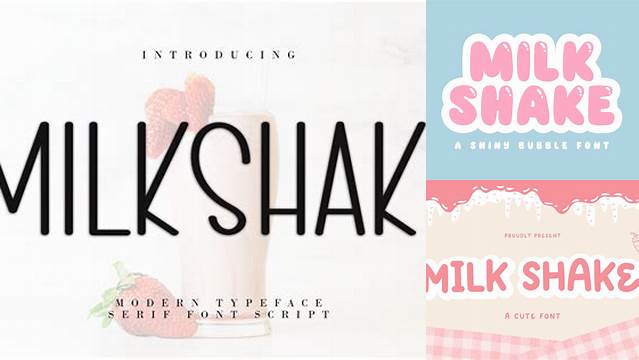
Milkshake Fonts: Your Ultimate Guide To Sweet & Playful Typography
Hey guys, ever stopped to think about the fonts you see every day? They're everywhere, from the websites you browse to the apps on your phone. But have you ever considered how a specific font can make you crave a delicious milkshake? That's the magic of milkshake fonts! These fonts are designed to evoke the feeling of creamy, sweet indulgence, perfect for anything related to food, fun, and a touch of nostalgia. Let's dive deep into the world of milkshake fonts, explore their characteristics, and see how you can use them to add a sprinkle of sweetness to your projects. This comprehensive guide is designed to help you understand and leverage the unique charm of these delightful typefaces.
What Exactly Are Milkshake Fonts?
So, what are milkshake fonts, you ask? Think about the quintessential milkshake experience: thick, creamy, and topped with a cherry. Milkshake fonts aim to capture that very essence. They are typically characterized by their playful, friendly, and often rounded letterforms. The best milkshake fonts often incorporate elements that mimic the appearance of whipped cream, sprinkles, and other sweet treats. Their primary goal is to create a warm, inviting, and undeniably delicious visual experience. These fonts aren't just about aesthetics; they're about communicating a feeling—a sense of joy, comfort, and pure, unadulterated happiness. Whether you're designing a menu for a retro diner, creating a logo for an ice cream parlor, or crafting social media graphics for a dessert shop, milkshake fonts can add that crucial layer of personality and appeal. They're designed to be eye-catching and memorable, making your brand stand out in a crowded marketplace. They're designed to be eye-catching and memorable, making your brand stand out in a crowded marketplace. They work well in print and digital environments, adding charm to any design project. The overall feel is light and airy, mirroring the delightful texture of a perfect milkshake. These fonts often include various weights and styles, allowing for versatility in application. They are not just about the visual; they also have a sound that evokes feelings of refreshment and sweetness.
These fonts go beyond mere aesthetics, they are a complete sensory experience. The best milkshake fonts also have a certain level of readability, making them suitable for both headlines and body text in certain contexts. However, their primary strength lies in their ability to capture attention and create a strong brand identity. They are usually available in multiple formats, including OTF and TTF, ensuring compatibility across different design software and platforms. Whether you're a seasoned designer or a beginner, these fonts are fun and simple to use. The choice of a milkshake font can significantly impact the overall tone and effectiveness of your design, adding both visual appeal and emotional resonance.
Key Characteristics of Milkshake Fonts
Now, let's talk about what makes a milkshake font a milkshake font. Several key characteristics define these fonts, helping them stand out from the crowd. First and foremost, they often sport a rounded or curved design. The edges of the letters are soft and gentle, much like the smoothness of a well-blended milkshake. Think about how the letters almost seem to melt into each other, creating a sense of fluidity and ease. This curvature helps to promote a friendly and approachable vibe, immediately drawing the viewer in. They also feature elements that evoke the treats they’re trying to represent. Secondly, many milkshake fonts incorporate playful details. This can be anything from slightly uneven strokes to whimsical embellishments, like little swirls or decorative serifs that resemble whipped cream. The fonts sometimes include options like shadows, outlines, or textured fills to further enhance the three-dimensional appearance, giving the impression that they’re almost good enough to eat. These details add a unique character, making each font stand out. They are designed to make your designs more memorable, more interactive, and just plain more fun. The fonts often come with a set of alternatives and ligatures to increase the fun and flexibility of your design.
Thirdly, the color palettes often associate with the fonts. The fonts are designed to complement the overall feel and aesthetic. They are mostly used in a color palette of pastels, bright colors, or ice cream colors. In addition to their visual characteristics, milkshake fonts often have a sense of movement. This is often created through the use of slanted letterforms or dynamic spacing. The fonts use varying line weights, which makes them versatile for different applications. The fonts create a sense of rhythm and energy, which is very appealing to viewers. This feeling creates a sense of excitement and playfulness, ensuring that the message is delivered with style. Milkshake fonts aren’t just visually appealing; they are tools for storytelling. They help to make sure that your audience remembers the story. These visual elements combine to make fonts that are visually striking and emotionally resonant.
Where Can You Use Milkshake Fonts?
Okay, so you've fallen in love with milkshake fonts. Now, where can you actually use them? The applications are vast, ranging from digital to print, personal to professional. One of the most obvious places is in food-related businesses. Think ice cream parlors, bakeries, coffee shops, and restaurants with a retro or playful theme. A milkshake font can instantly communicate the type of atmosphere you're aiming for. The fonts add personality and charm to menus, signage, and social media graphics, attracting customers. They're perfect for creating a brand that's both inviting and memorable. They're perfect for creating a brand that's both inviting and memorable. The fonts work great for websites and apps, as well. They can make them look more fun and approachable. The fonts can be integrated into various design elements, such as buttons, headings, and image overlays, creating a cohesive and engaging user experience. You can even use these fonts in your personal projects, such as invitations, greeting cards, or scrapbook layouts. Add a touch of sweetness and fun to special occasions. The fonts can be used for birthday parties, baby showers, and other festive celebrations. They are super fun to use. The fonts can add a personal touch that makes them unforgettable. These fonts bring out the joy and sweetness of life.
Milkshake fonts are great for branding. Creating logos, business cards, and other marketing materials. They can help you create a unique brand identity that reflects your values and style. The fonts make sure that you stand out from the competition. They make your brand memorable and recognizable. The right font creates a strong impression and is remembered by your audience. Milkshake fonts can be used in a variety of creative projects, from posters to book covers. They are suitable for a variety of applications, making them the perfect addition to any design toolkit. These fonts are ideal for adding a playful vibe to designs, ensuring they’re as appealing as they are informative.
Top Milkshake Fonts to Sweeten Your Designs
Alright, let’s get to the good stuff – the fonts themselves! Here are a few of the top milkshake fonts that you can start using today. Each font offers a unique flavor, so you’re sure to find one that suits your taste. The following recommendations are all available for commercial use. Consider these options as your starting point. There are various websites that offer these and other milkshake fonts.
1. Candy Cane: This is a classic, playful font that is best suited for headlines and short phrases. The font features thick, rounded letterforms. This font is sure to add a touch of sweetness to your designs. Perfect for branding, social media graphics, and other projects that need a touch of fun. The design is reminiscent of the famous candy canes. The font is fun and attractive, making it great for use in a variety of projects.
2. Milkshake: A versatile font that is ideal for a variety of applications. The font features soft, rounded edges and a slightly irregular appearance, giving it a handmade feel. This font is designed to give a warm, inviting, and fun vibe. The font's casual nature makes it perfect for food packaging. The design is perfect for a variety of digital and print projects.
3. Sweet Tooth: This font is known for its charming and whimsical design. This font is great for creating a fun, lively atmosphere. The font is great for creating logos, headings, and other designs that need to be fun and playful. With a whimsical appearance, the font adds a touch of cheerfulness to any design project. Sweet Tooth is great for designs that need to convey a sense of playfulness.
4. Ice Cream Sandwich: This font is a delightful, handcrafted font that has a warm, inviting aesthetic. This font is great for creating a vintage feel. The font is great for designing menus, posters, and other vintage-themed designs. The font has an inviting, approachable design, which evokes a sense of warmth and nostalgia. The font is suitable for a variety of creative applications, including food-related branding.
Tips for Using Milkshake Fonts Effectively
So, you've found some great milkshake fonts. Now, how do you make the most of them? Here are a few tips to help you create designs that are both visually appealing and effective. First, consider your audience. While milkshake fonts are undeniably fun, they may not be appropriate for every project. Think about your target demographic and whether the font aligns with their preferences. If you're creating a design for a professional or serious product, a milkshake font might not be the best choice. They're better suited for fun-loving designs.
Next, choose the right font weight and style. Many milkshake fonts come in various weights and styles. It’s usually best to test a few different options to see which best matches your brand. Choose a weight that is easy to read and that complements the overall design. When picking the right font, make sure it works well with the other design elements. This allows you to create a cohesive design.
Moreover, pay attention to spacing. Milkshake fonts can sometimes be challenging to read at small sizes or when the spacing is not adjusted correctly. Adjust the tracking and kerning to improve legibility. Make sure that your text is clear and easy to understand. Check the spacing for both headlines and body text to ensure that the words are easy to read. You should try to use the fonts in moderation and try not to overuse them. It's also a good idea to combine them with more simple fonts.
Finally, experiment and have fun! The most important thing is to enjoy the process. Milkshake fonts are all about adding a touch of sweetness to your designs. So, don't be afraid to experiment with different combinations and styles. Try out different color palettes, layouts, and design elements. Don't hesitate to combine the fonts to add your unique style. The more you experiment, the more you'll find new ways to use them. The more fun you have, the better your designs will become. Milkshake fonts can be perfect for bringing your design vision to life.
Beyond the Cherry on Top: Where to Find Milkshake Fonts
Ready to add a sprinkle of sweetness to your projects? Here’s where you can find some fantastic milkshake fonts. There are many sources that provide access to these delightful typefaces. Many of these sources offer both free and premium options. Keep in mind that if you want to use a font for commercial projects, you need to check the licensing terms. Always ensure that you have the appropriate license for your intended use. Some of the most popular sources include:
- Google Fonts: A great resource for free, open-source fonts. You'll find a variety of options, including some that fit the milkshake font aesthetic. It’s an excellent starting point for designers of all levels.
- Creative Market: A marketplace that offers a wide range of fonts from independent designers. You'll find a collection of professionally designed milkshake fonts here.
- Envato Elements: Offers a subscription service with access to thousands of fonts and other design assets. This is a great option if you need fonts regularly.
- Dafont: Has a vast collection of fonts, many of which are free for personal use. However, always check the license before using a font for commercial purposes.
- Font Squirrel: Another great source for free, high-quality fonts. This site offers a curated selection of fonts with commercial-use licenses. This is an important point to remember.
When selecting a font, make sure you read the license agreement to understand the terms of use. Some fonts are free for personal use, but require a license for commercial projects. Also, consider the specific design needs of your project. Always ensure that the font has the right file format and that the font works with your design software.
Conclusion: The Sweet Finish
Alright, guys, we've reached the end of our journey into the wonderful world of milkshake fonts! These fonts are more than just typefaces; they're a way to add a touch of sweetness, nostalgia, and pure joy to your designs. They are great for creating visual experiences that are both attractive and memorable. Whether you're designing a menu, a logo, or social media graphics, milkshake fonts are sure to bring out a smile. So, go forth, experiment with different fonts, and have fun creating designs that are as delicious as a freshly made milkshake! Remember that these fonts have the power to transform your design projects into sweet, unforgettable experiences. So, pick a font, mix it with your creativity, and get ready to create some amazing designs! These fonts are all about infusing your projects with joy and sweetness, making your designs fun.